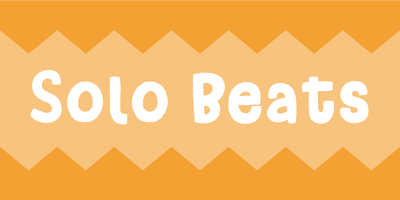
Solo Beats
Solo Beats font
Solo Beats Font Family was designed by Jakob Fischer and published by PizzaDude.dk. Solo Beats contains 2 styles and family package options. It’s clear, fat and juicy – it’s my Solo Beats font! It has got that organic feeling of something handmade…and that is exactly what it is. Even though I digitally removed some inkblobs here and there, the handmade look is quite clear!